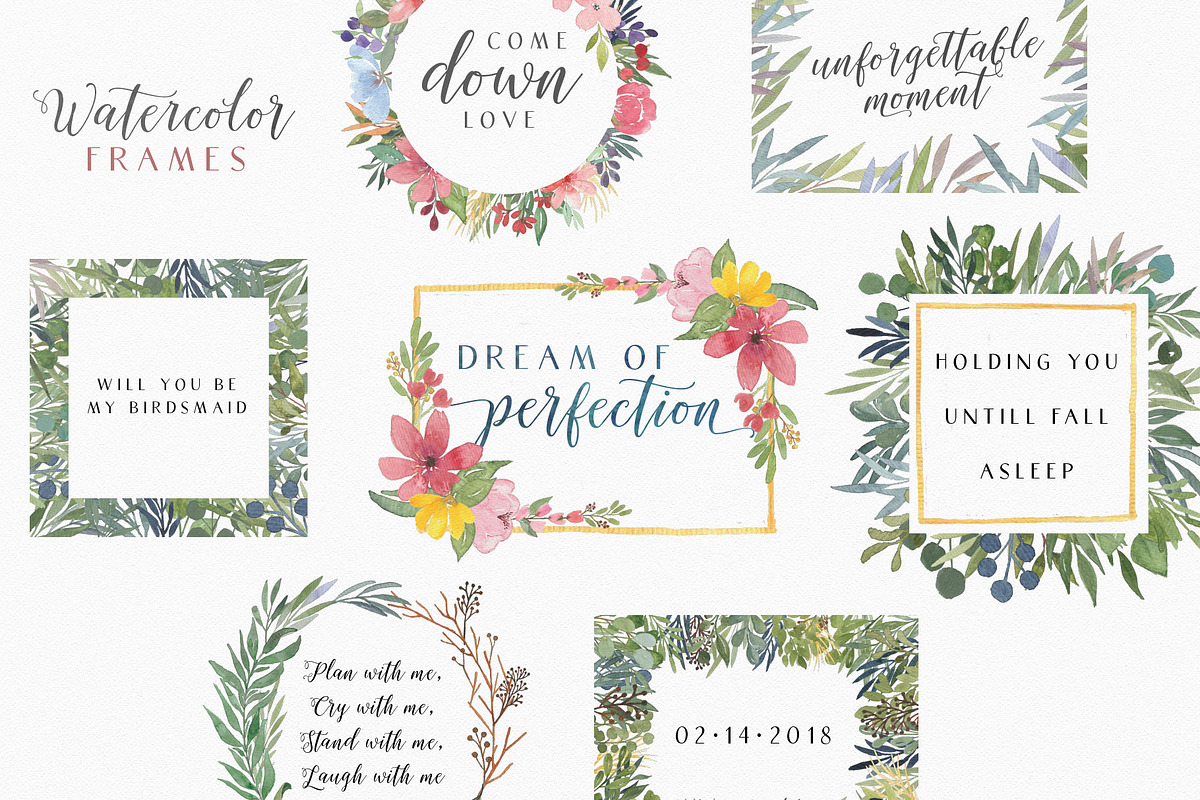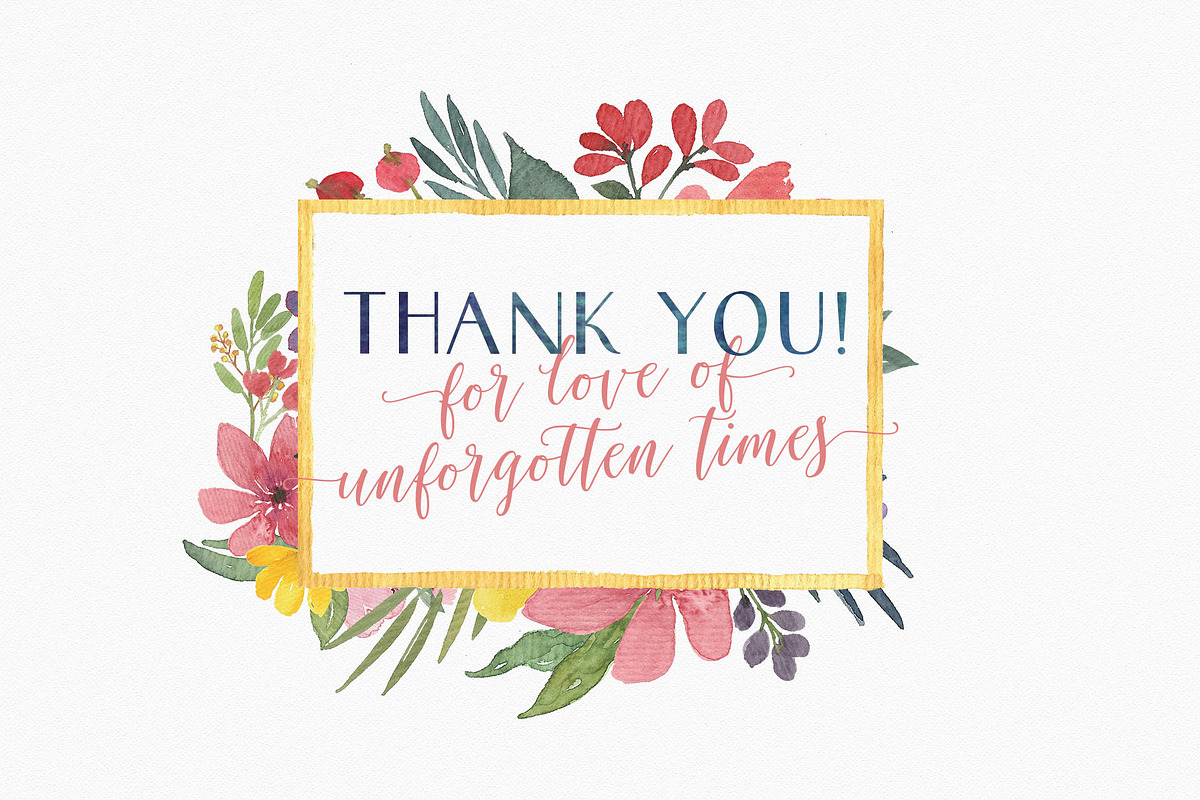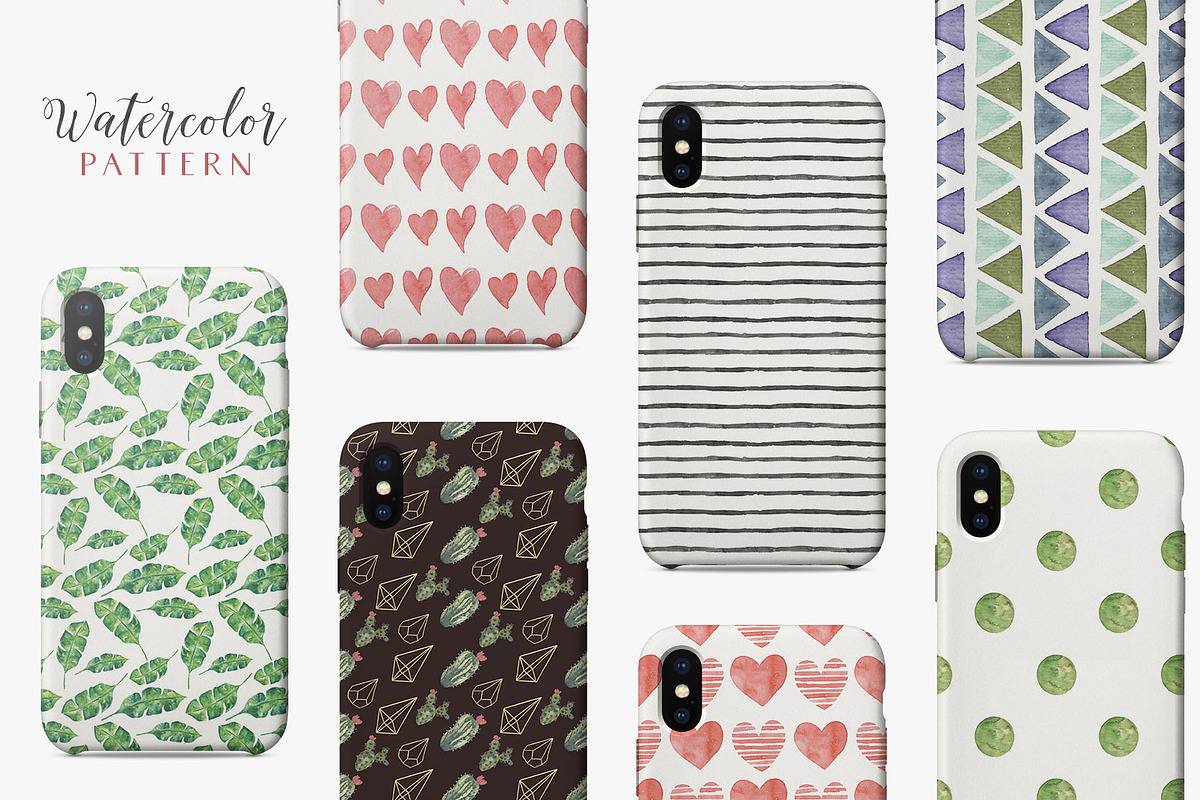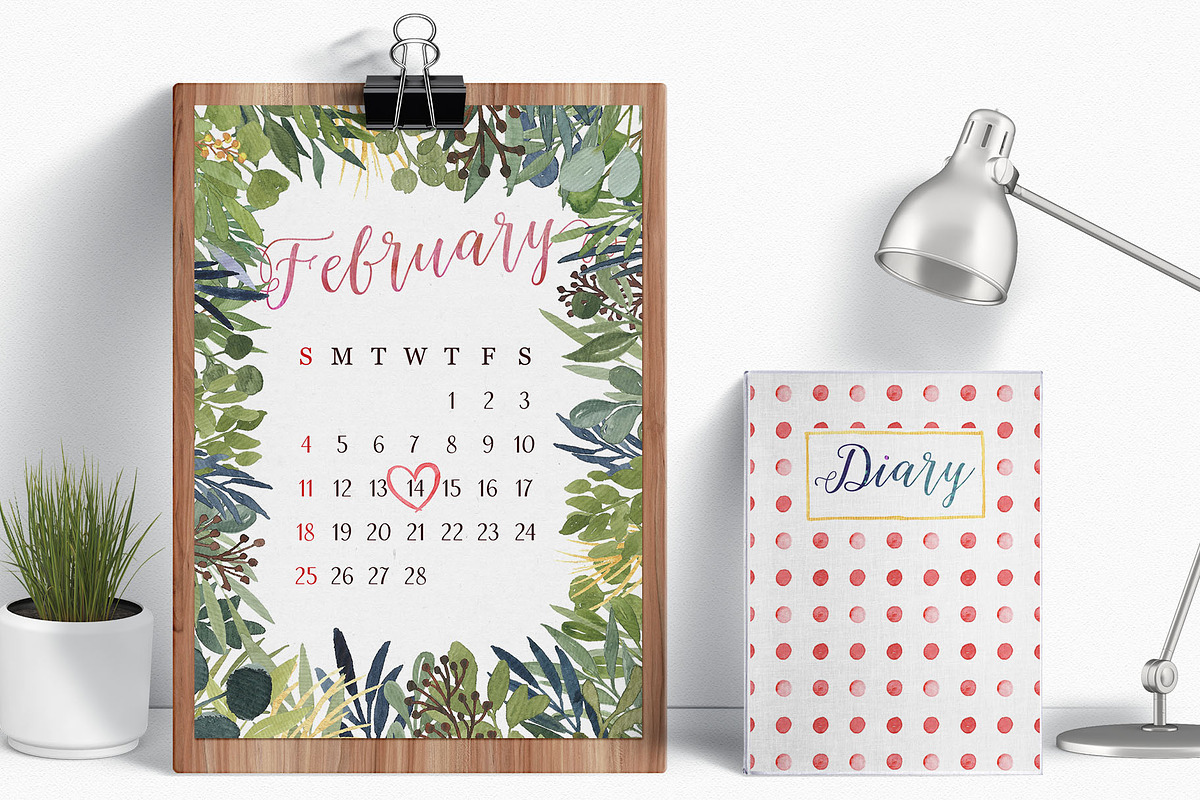
Ellie Bellie + Watercolor Kit
Pack of Love Edition
Ellie Bellie is an advanced Font Duo with combining Modern Calligraphy Script and Sans Serif Fonts. Combinations between both fonts made you easier to create something on typing a design content such as headlines and sub-headlines, logos, digital lettering, cards, branding, etc.
Ellie Bellie Script is active Opentype Features, such as Contextual Alternates for changing the letters when it meets the same letters, changing the letters automatically on an isolated letters. Standard Ligatures, Discretionary Ligatures, Contextual Swash to easy add the swash in the beginning and end of letters, Stylistic Sets up to 21 alternates letters, Fractions and Old Style Figures. Ellie Bellie Sans are less opentype features, just a few of Stylistic Sets. Both fonts are support of multilingual language.
It's just not only fonts. I Presented the huge extra bonus watercolor kit on this product with all included on the display and also some of them inside the files.
Themes of this watercolor are Tropical, Succulent Geometric, Love or Valentine, Basic Shape, Flowers and Leaf.